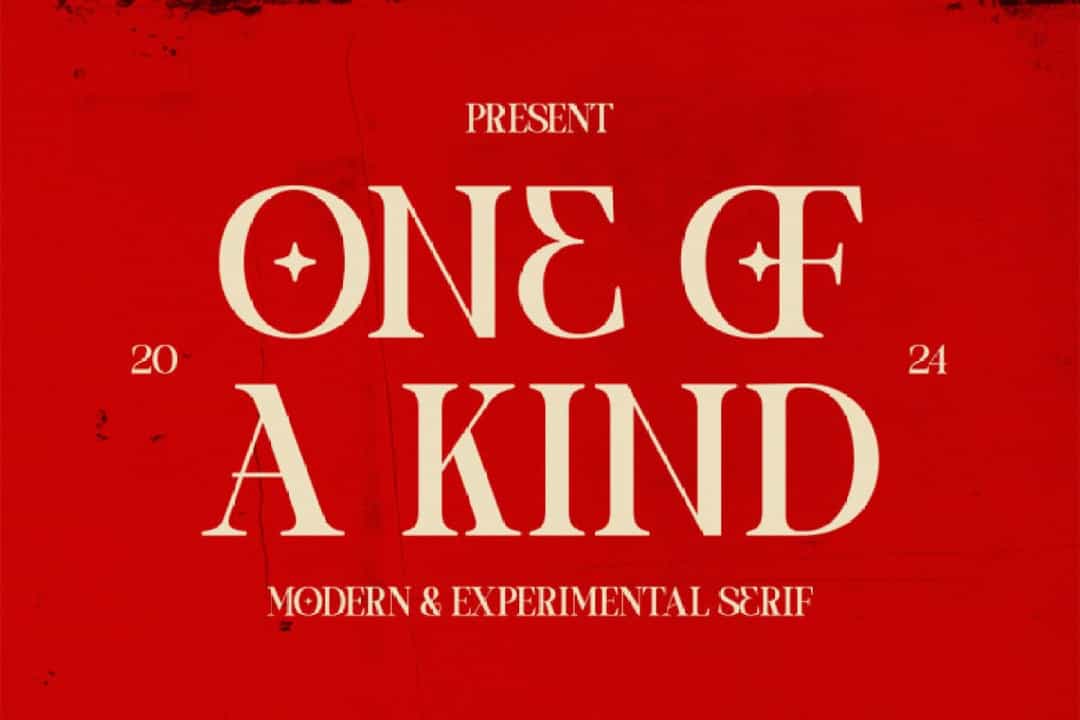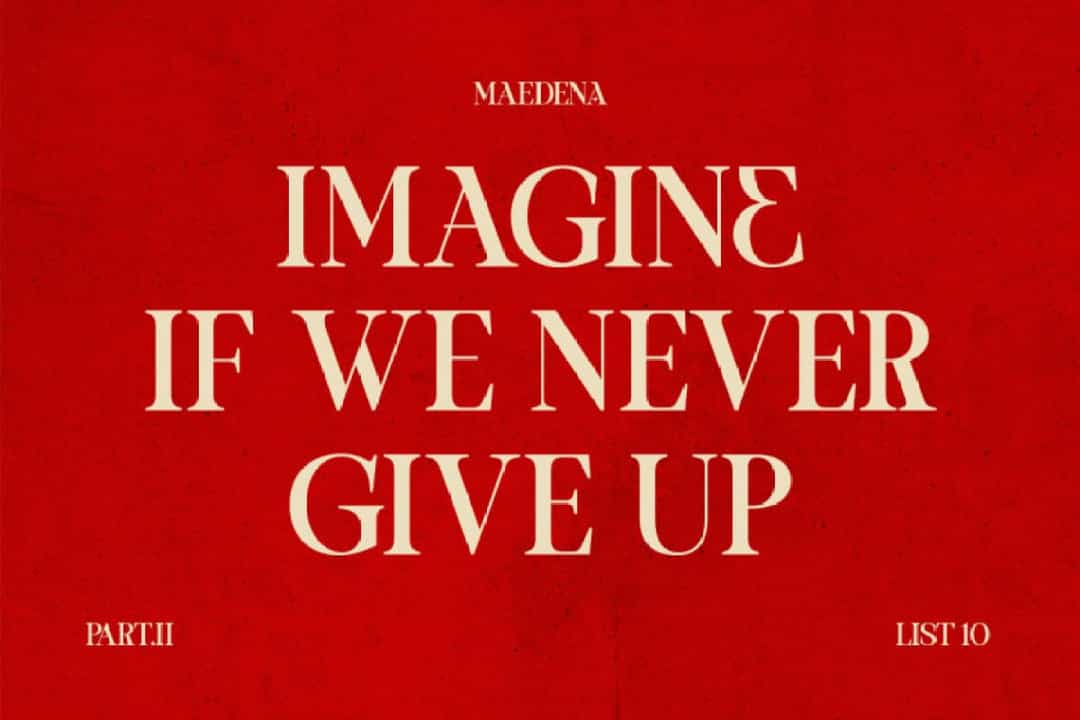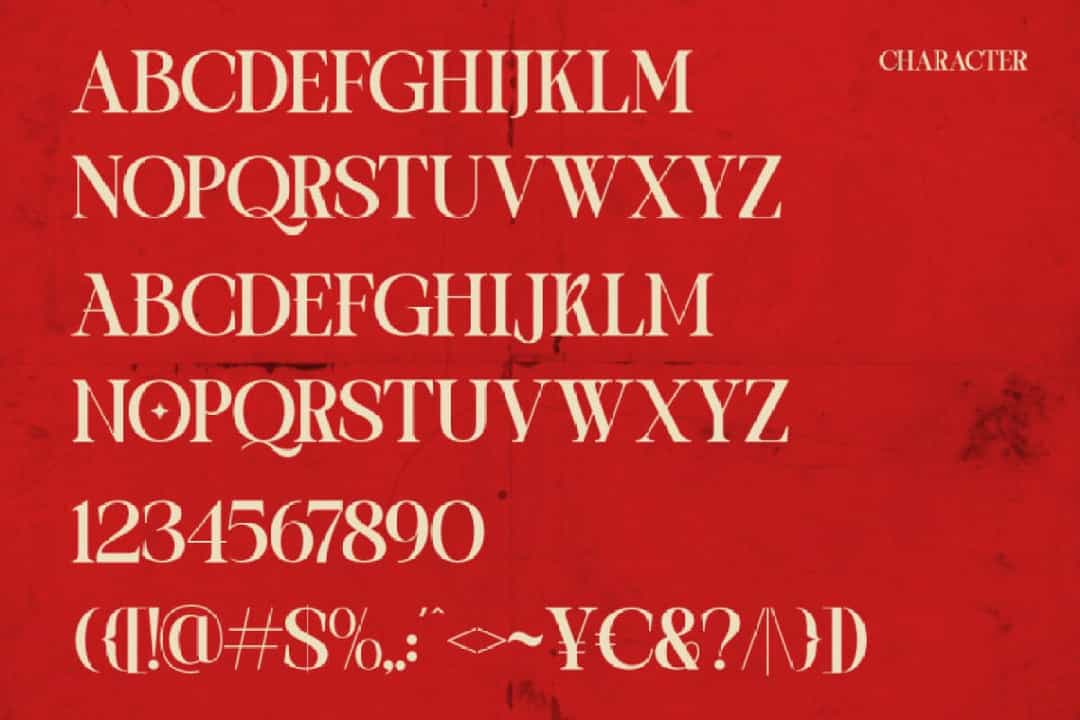
One Of A Kind is an elegant serif typeface distinguished by its distinct elegance. Crafted letterforms echo timeless sophistication to make One Of A Kind truly stand out. Perfect for projects requiring elegant yet distinctive typefaces, It adds subtle style and individuality into your designs.